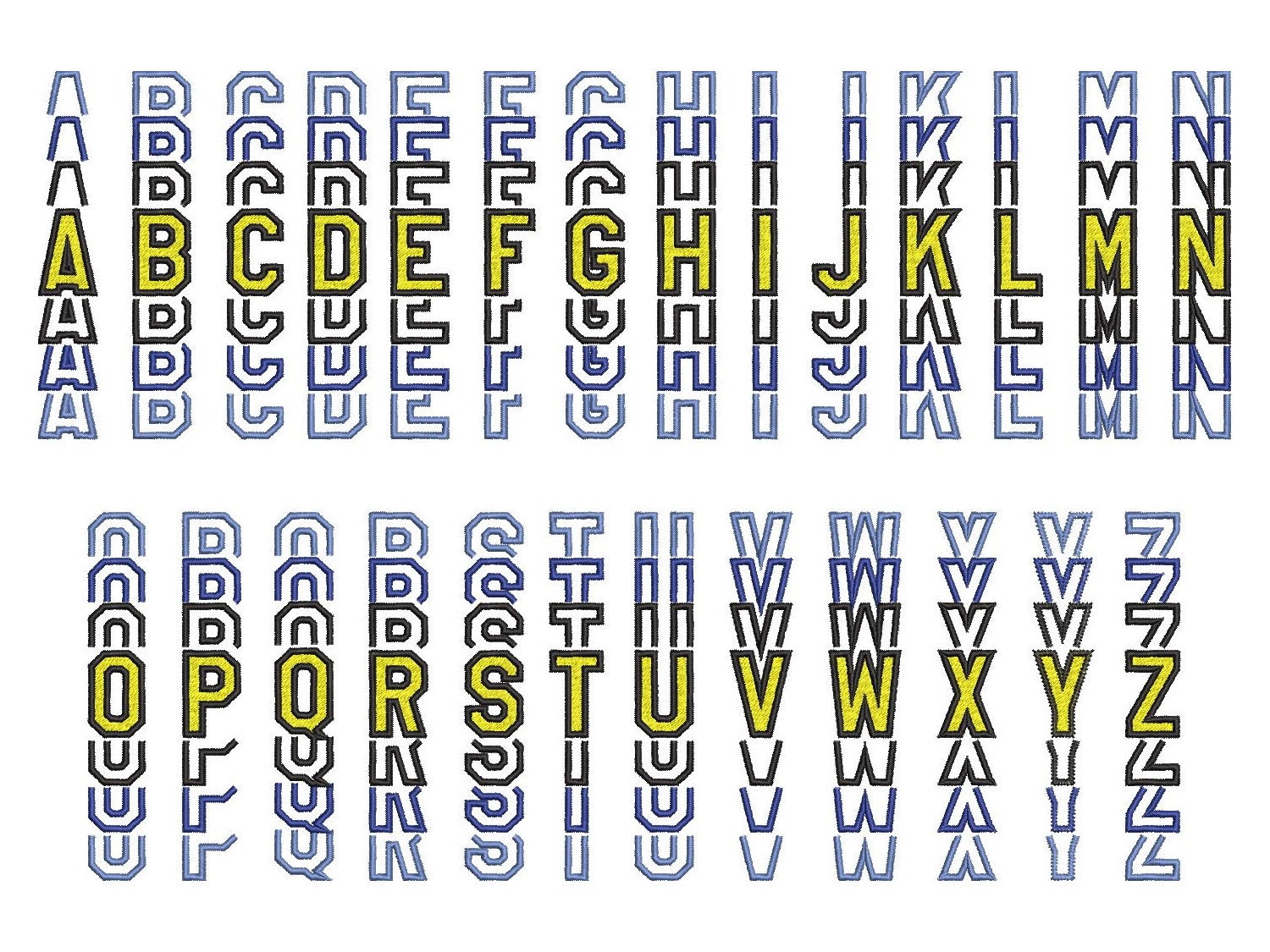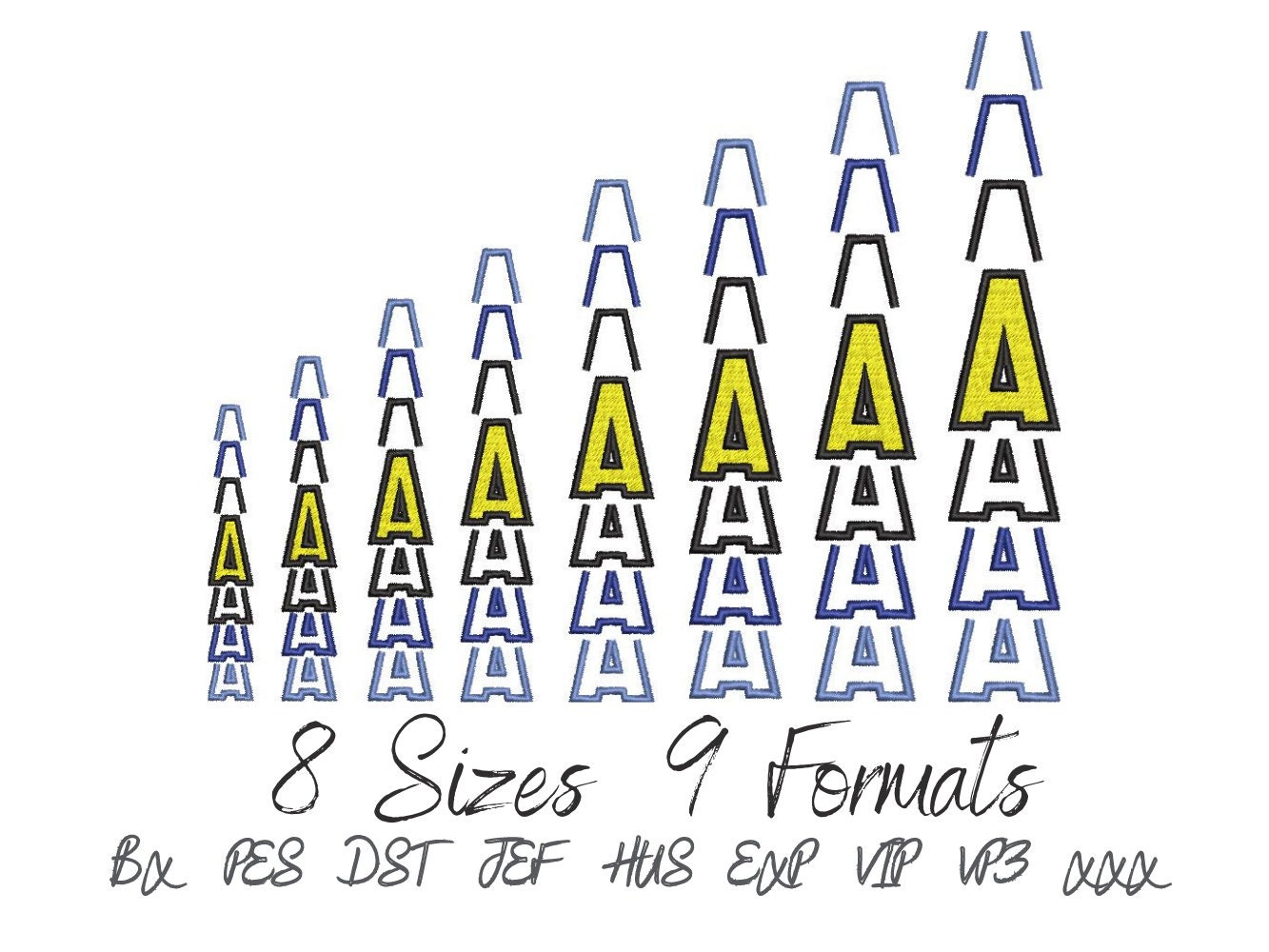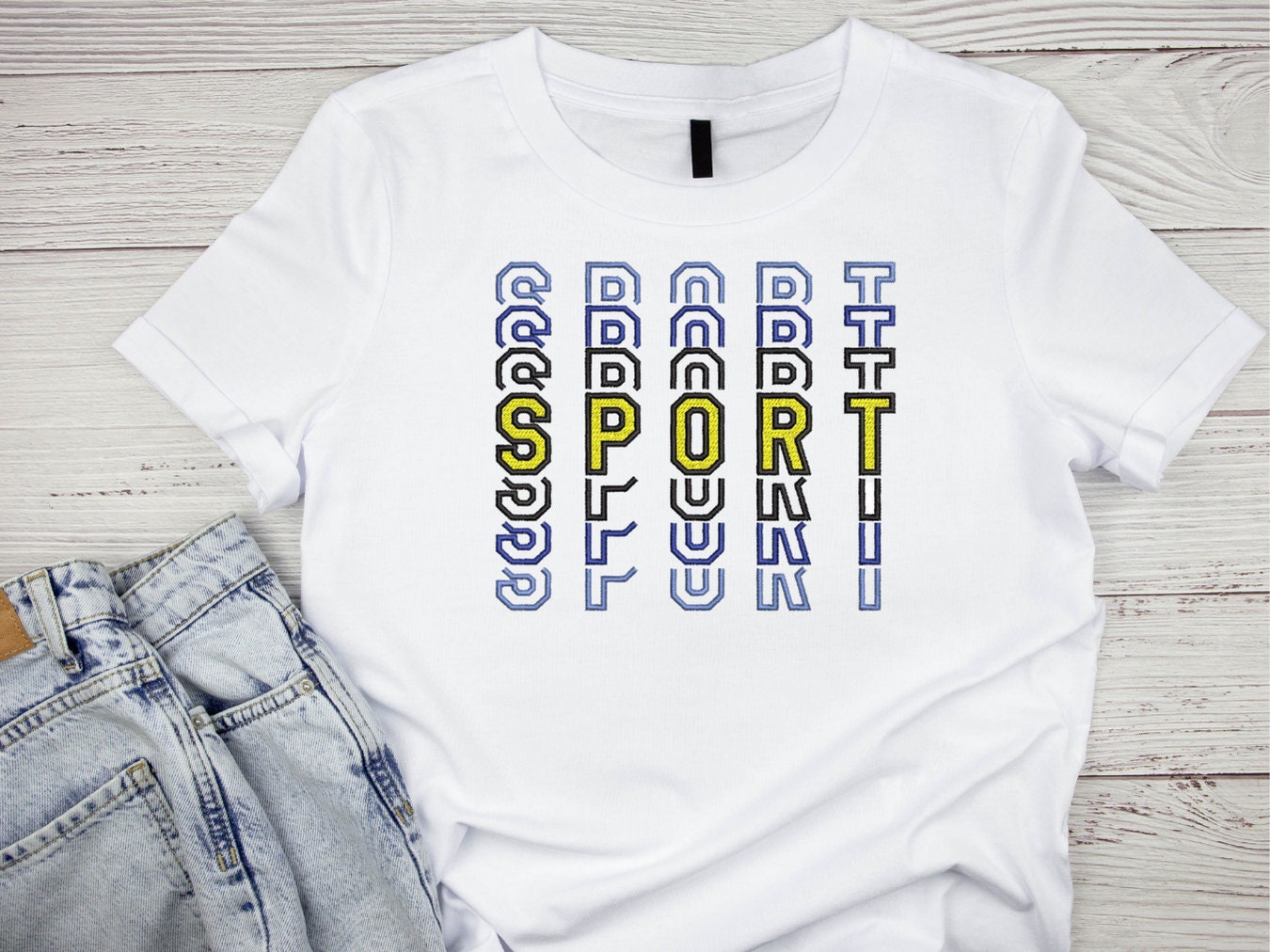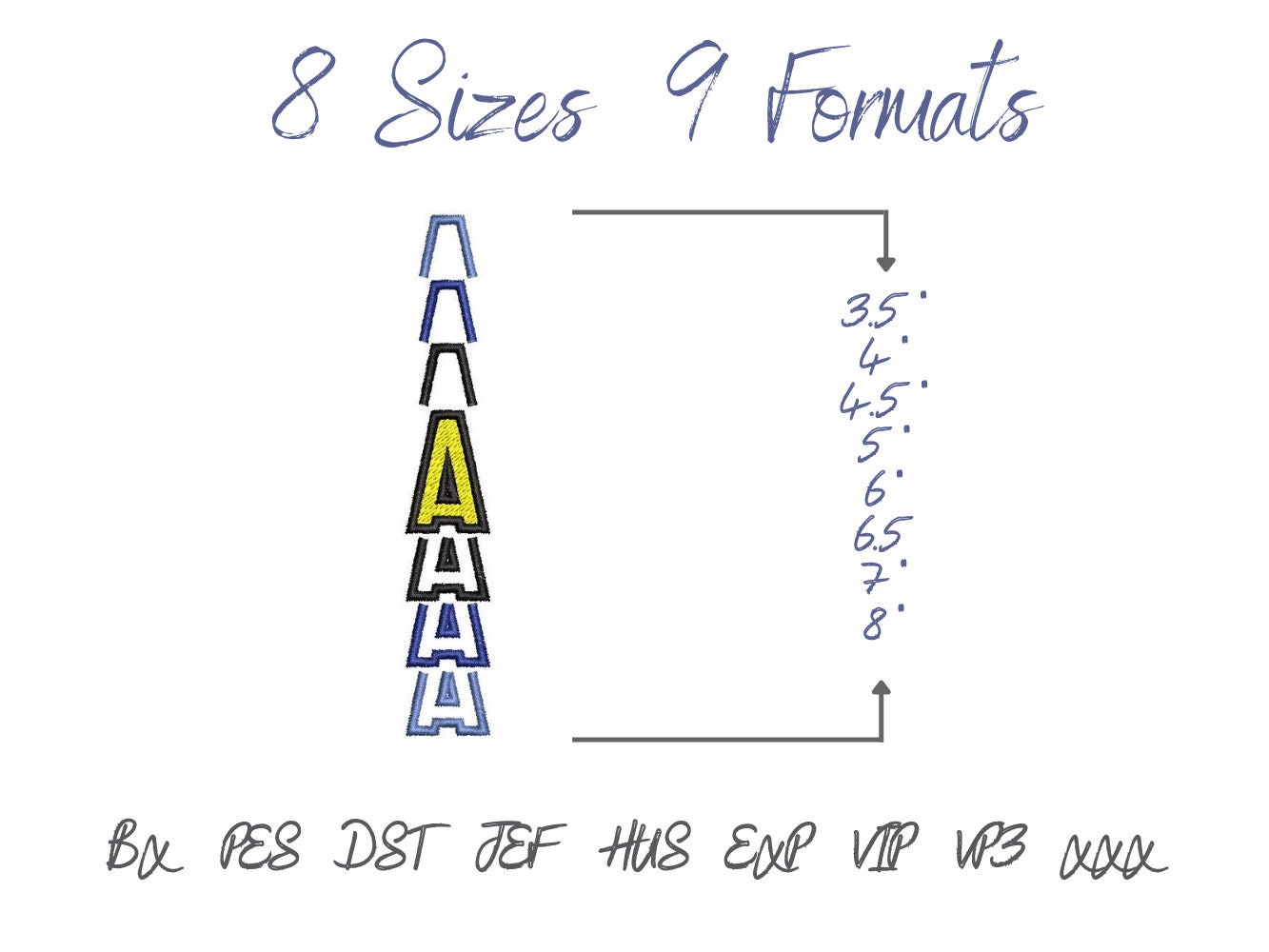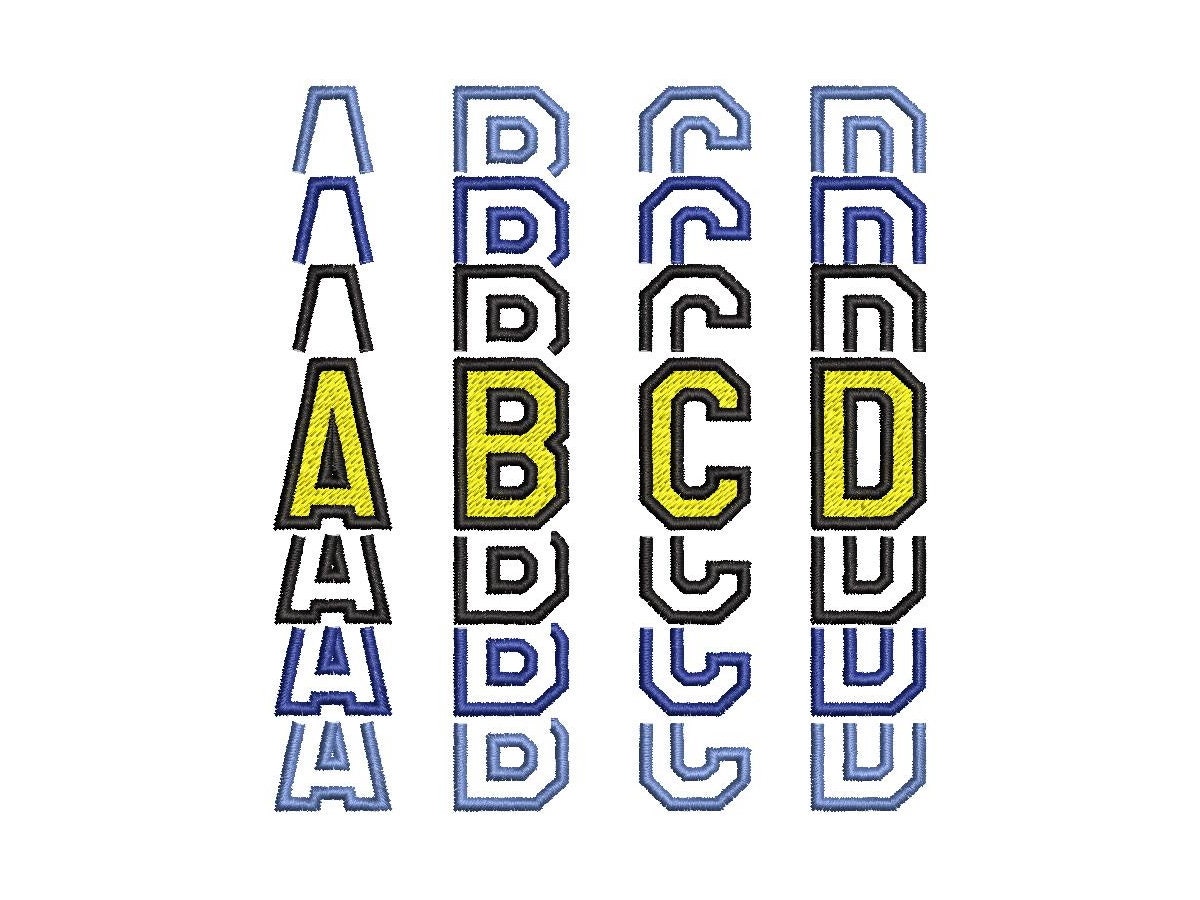
Stacked Block Font, fill stitch and outline alphabet letters sport boy trend Font fabulous machine embroidery designs assorted sizes BX included
The whole alphabet A-Z uppercase